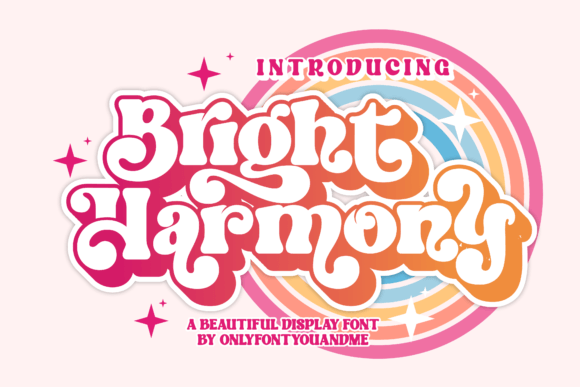
Introducing Bright Harmony Font, the perfect choice for creating an eye-catching and captivating resume for teachers. This cute and fun display font will instantly grab the attention of potential employers, showcasing your creativity and personality in a unique way.
With its PUA encoding, accessing all the glyphs and alternates of Bright Harmony Font is a breeze. You'll have endless possibilities to customize and personalize your resume, making it truly stand out from the crowd. Impress hiring managers with a font that exudes charm and originality.
Imagine your resume adorned with the playful curves and delightful details of Bright Harmony Font. It adds a touch of whimsy and creativity, instantly making your application memorable. Whether you're applying for a teaching position or any other job, this font will help you leave a lasting impression.
Not only is Bright Harmony Font perfect for resumes, but it also shines in various other applications. Add a touch of cuteness to your stickers, t-shirts, mugs, and more! Let your creativity run wild and create personalized items that reflect your unique style.
Stand out from the competition and let your personality shine through with Bright Harmony Font. Its captivating charm will make your work visually appealing and unforgettable. Whether you're a teacher or simply looking to add a touch of playfulness to your designs, this font is your ultimate companion.